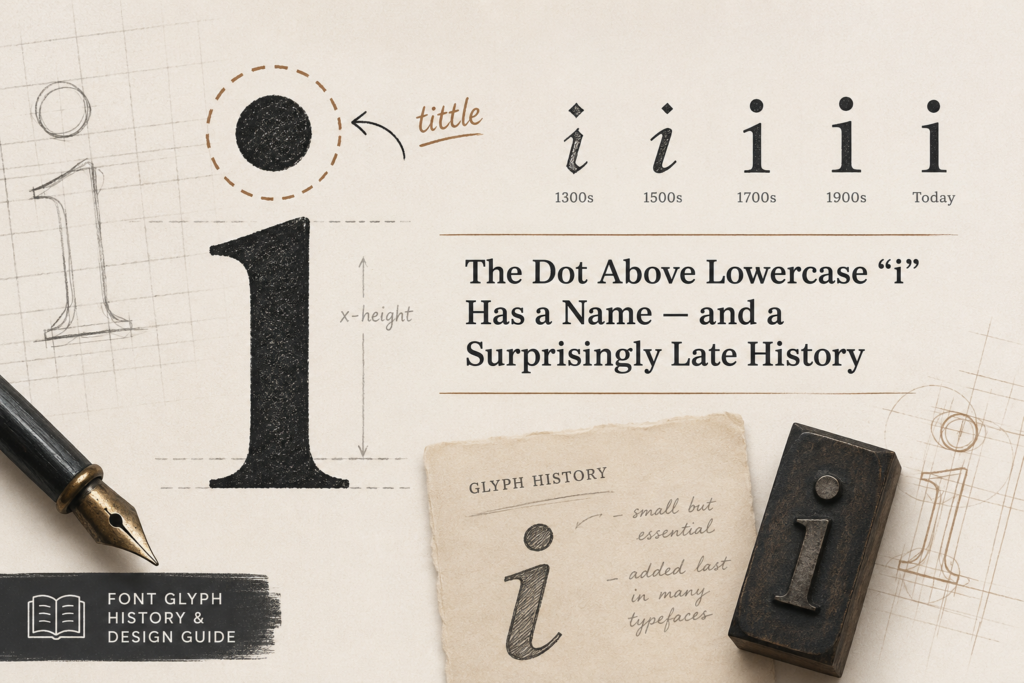
Lowercase “i” is the smallest letter in the alphabet by visual footprint, but it carries one detail most people never think about: that little dot on top wasn’t always there. For centuries, “i” existed as a plain vertical stroke, no dot required.
A Short History of “i”
“i” traces back to the Phoenician letter yodh, thought to represent a hand or forearm, and it passed into Greek as iota — a name that survives today in the English phrase “not one iota,” meaning the smallest possible amount, a fitting nod to how minimal the letter’s shape is. The Etruscans and Romans carried the letter forward largely unchanged as a simple vertical stroke, and for most of the classical period, that’s all “i” ever was: one straight line, used for both the vowel sound and, confusingly, sometimes the consonant sound now represented by “j” (which didn’t exist as a separate letter yet and wouldn’t be formally split off from “i” until well into the medieval and early modern periods).
The dot is a much later addition than most people assume. During the medieval period, as scribes began writing in tighter, more condensed cursive scripts, a single unadorned vertical stroke became genuinely difficult to read when it appeared next to other letters built from similar strokes, like “m,” “n,” and “u.” A sequence like “minim” could turn into a dense, ambiguous cluster of nearly identical vertical marks, and readers had real trouble telling where one letter ended and another began. To solve this, scribes started adding a small mark above certain “i” strokes to help separate them visually from their neighbors — initially just a thin diagonal stroke, not the round dot we use now.
That mark evolved over the following centuries, eventually standardizing into the small round dot familiar today, technically called a tittle. By the time movable type was developed in the 15th century, the dotted “i” had become the standard form, cementing a legibility fix from medieval handwriting into permanent typographic convention.
Anatomy of a Lowercase “i”
Lowercase “i” is built from two separate parts: the stem, a short vertical stroke that sits at x-height, and the tittle, the small dot or mark positioned above it. Unlike an ascender, the stem of “i” doesn’t rise above the x-height at all — it’s one of the shortest strokes in the entire lowercase alphabet.
The tittle isn’t simply a small circle dropped above the stem; its size, shape, and vertical position all affect the letter’s overall rhythm and balance. Too large a tittle can make “i” look top-heavy or cartoonish; too small, and it risks disappearing at small text sizes, undermining the entire legibility problem it was invented to solve in the first place. The gap between the tittle and the top of the stem also matters — too little space and the two elements visually merge into a blob; too much space and the letter looks disconnected, almost like two unrelated marks stacked on top of each other.
“i” belongs to a structural family of straight-stemmed letters that includes “l,” “j,” and to some extent “t,” all of which need consistent stroke width and weight to keep a typeface feeling unified. Its dot, meanwhile, connects it visually to lowercase “j,” which also carries a tittle above its stem.
Designing the Letter From Scratch
Because “i” is structurally so simple, type designers usually treat it less as an independent design problem and more as a calibration exercise. The stem width gets locked early, matching the vertical strokes already established in “l,” “h,” and other straight-sided letters, since any inconsistency here is immediately noticeable — a slightly thicker or thinner “i” stem stands out precisely because the letter offers no other detail to distract the eye.
The real design decisions concentrate almost entirely on the tittle. Designers typically test several tittle sizes and shapes against the finished stem, since the two need to feel proportionally connected despite being physically separate strokes. In many serif typefaces, the tittle picks up a subtle diamond or angled shape, echoing the terminal treatment used elsewhere in the font; in most sans-serifs, it stays a simple circle or rounded square.
Vertical spacing between the tittle and the stem gets fine-tuned carefully, often through direct testing in running text rather than isolated specimen views, since the correct gap can look slightly different in a large display headline versus a small paragraph of body copy. Designers frequently check “i” next to “j” as well, making sure both tittles match in size and position so the two letters read as clearly related.
Unique Facts About “i”
The word “dotted i” is such an established English phrase — as in “dotting the i’s and crossing the t’s” — that many people are surprised to learn the dot is a relatively late addition to the letter’s long history, arriving well over a thousand years after the base stroke was already in common use.
The dot’s proper name, tittle, is one of the more obscure pieces of typographic vocabulary, rarely used outside of type design and a handful of linguistics contexts, despite being a feature every literate person interacts with constantly.
“i” and “j” share such a close historical relationship that some older typefaces and even some modern dictionaries from certain languages still treat them as closely linked rather than fully separate letters, a holdover from the long period when “j” was simply a stylistic variant of “i” used at the end of Roman numerals or in specific word positions, rather than an independent letter in its own right.
There’s a deeper twist too: “i” and “j” were essentially the same letter for a huge stretch of history, with “j” only splitting off as an independent character much later.